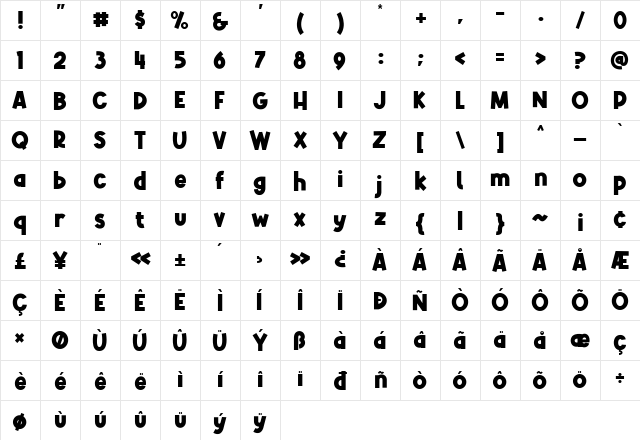
Alphakind Regular
| Foundry | Khurasan |
| Designer | Khurasan |
Design Context for Alphakind Typeface
Alphakind takes a measured approach to typography — its balanced proportions and neutral character make it a reliable workhorse for both digital and print work.